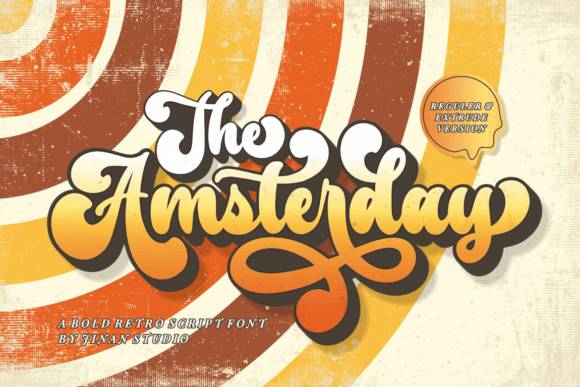
Dive into the realm of captivating typography with The Amsterday Font, a retro and bold handwritten script that exudes charm and elegance. Designed to enthrall and inspire, this font family is a true gem for those seeking to add a touch of vintage flair to their creative endeavors.
With The Amsterday Font, you'll embark on a journey through time, where the allure of the past meets the vibrancy of the present. Its meticulously crafted characters, reminiscent of a bygone era, carry within them a sense of nostalgia and timeless beauty. Whether you're designing greeting cards, crafting headlines that demand attention, or adding a touch of sophistication to your magazines and logos, The Amsterday Font will elevate your projects to new heights.
Unleash your creativity and let your imagination run wild as you explore the endless possibilities that this font family presents. Its versatility knows no bounds, allowing you to effortlessly create designs that resonate with your audience. From whimsical invitations to eye-catching social media posts, The Amsterday Font will transform your words into captivating works of art.
The Amsterday Font comes equipped with PUA encoding, ensuring that you can effortlessly access all of its glyphs and swashes. Unleash your artistic vision and incorporate intricate details that add depth and dimension to your designs. With this font, you'll have the power to create designs that captivate and inspire, leaving an unforgettable impression on all who behold them.
Join the ranks of creative visionaries who have embraced The Amsterday Font as their go-to choice for crafting captivating designs. Let your creativity soar as you explore the limitless possibilities that this font family offers. Experience the joy of creating designs that resonate with your audience, leaving them mesmerized by your typographic artistry.